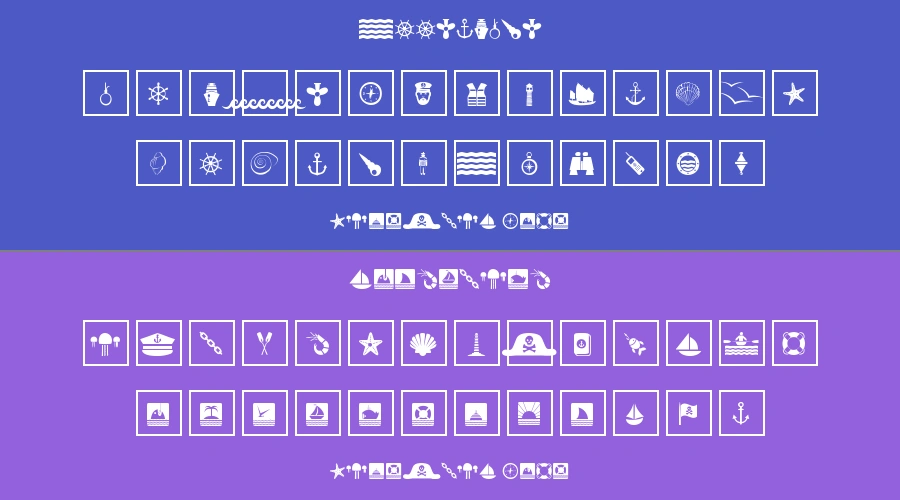
About Nautical Font
Designed with precision, Nautical Font merges geometric construction with optical harmony in every character. This versatility makes it particularly effective for heritage brands, where versatility and aesthetic refinement directly impact communication quality. Each letterform demonstrates meticulous craftsmanship.
Technical excellence shines through elements like calculated proportions and terminal forms, enhancing typographic versatility. In editorial spreads settings, Nautical Font proves its worth through superior personality transfer. The thoughtful execution of apex design and standards alignment ensures professional results.